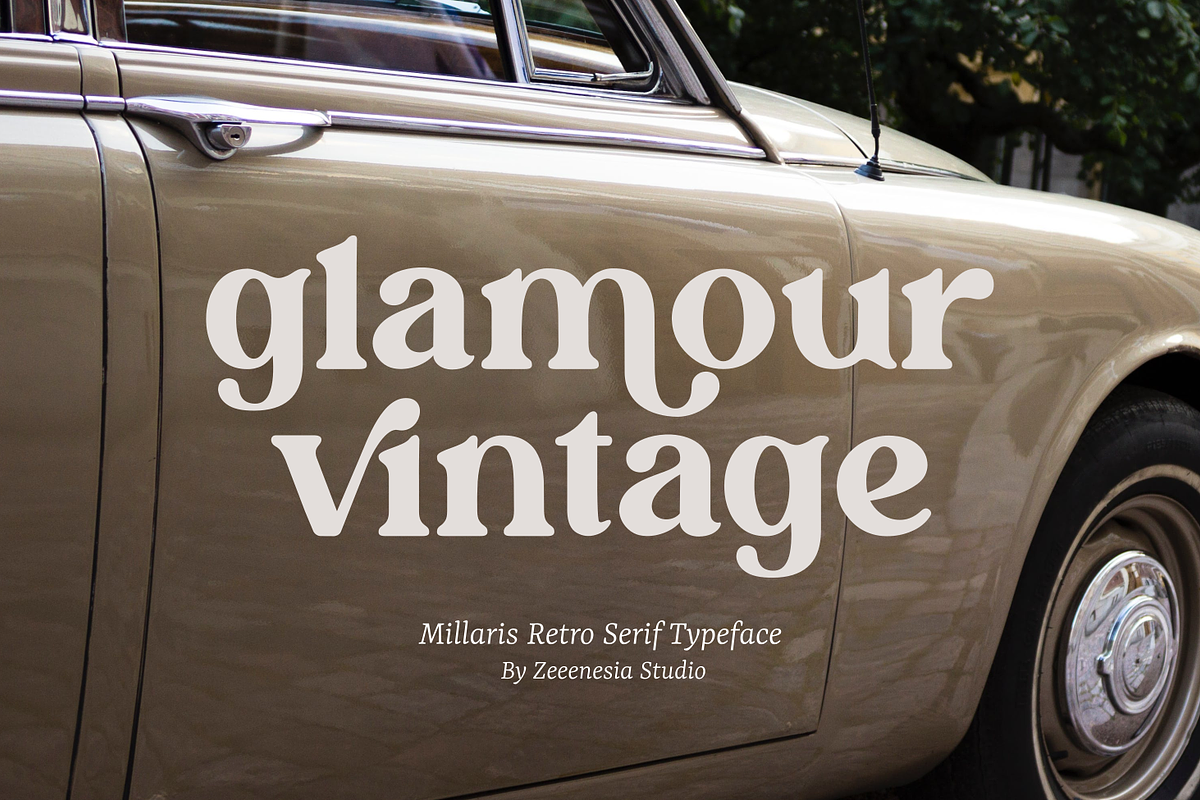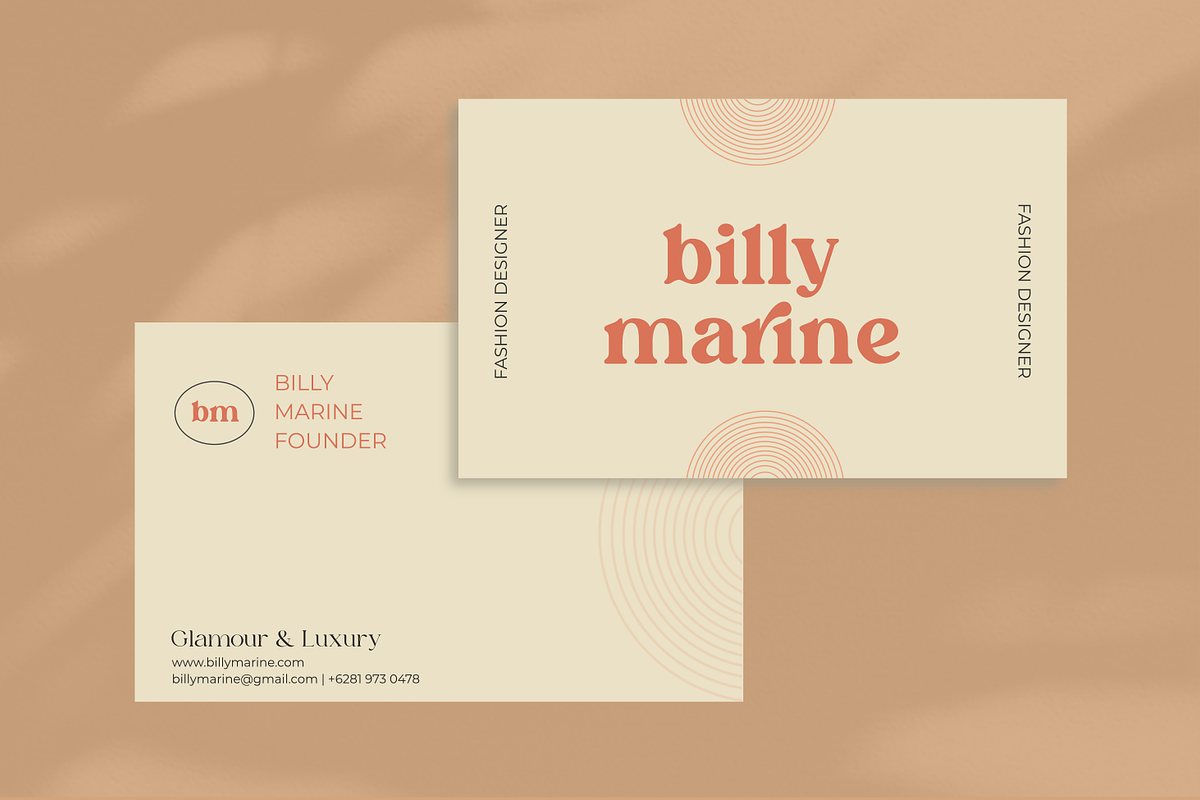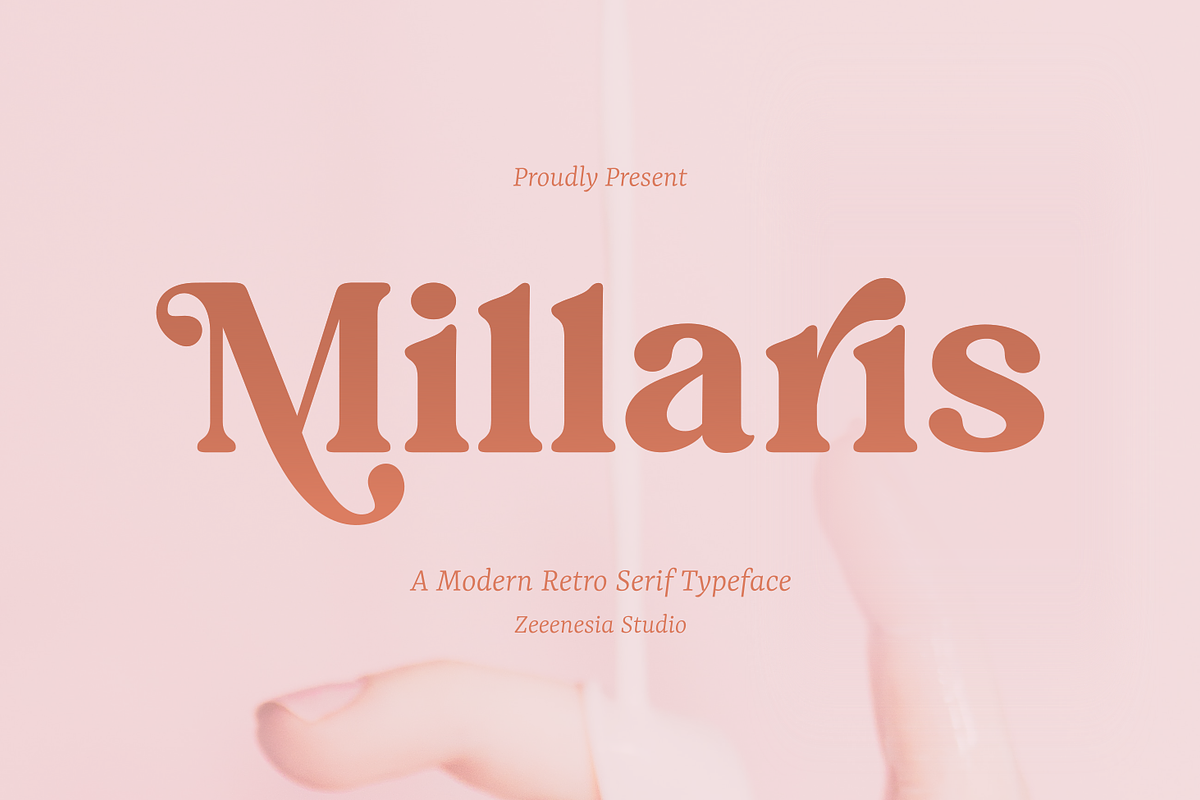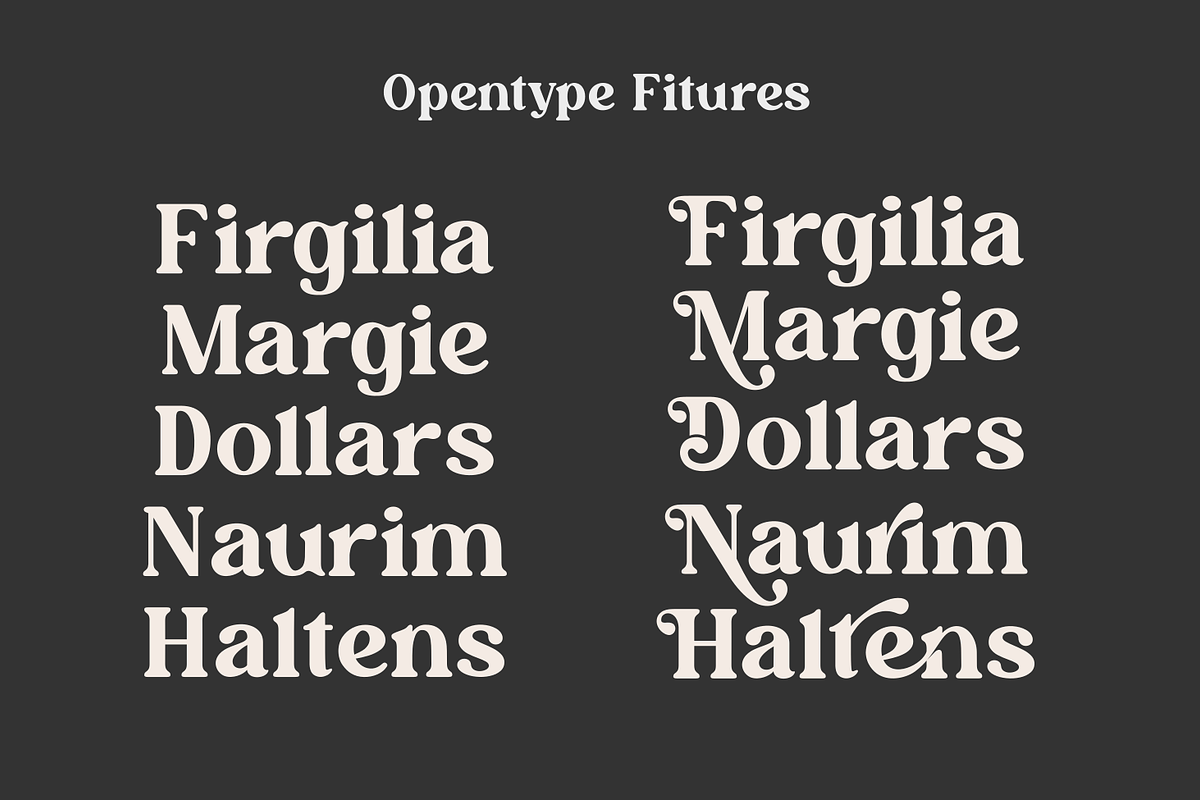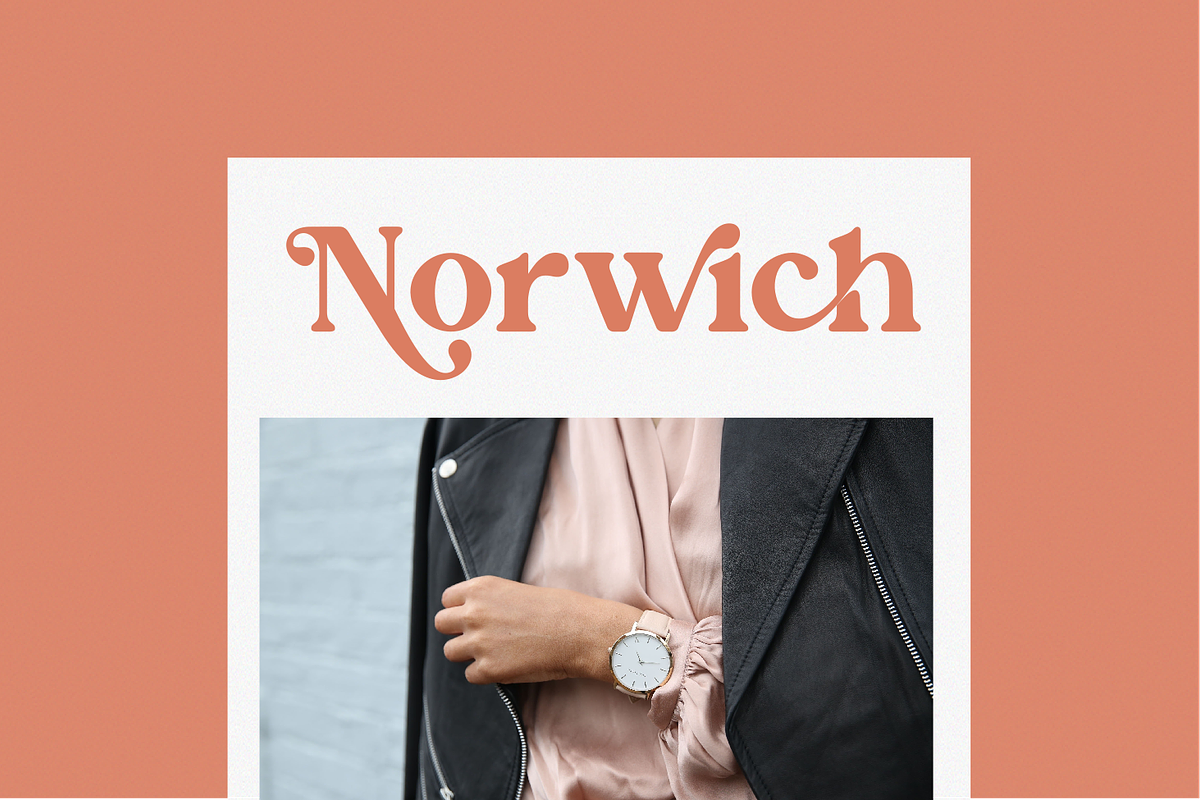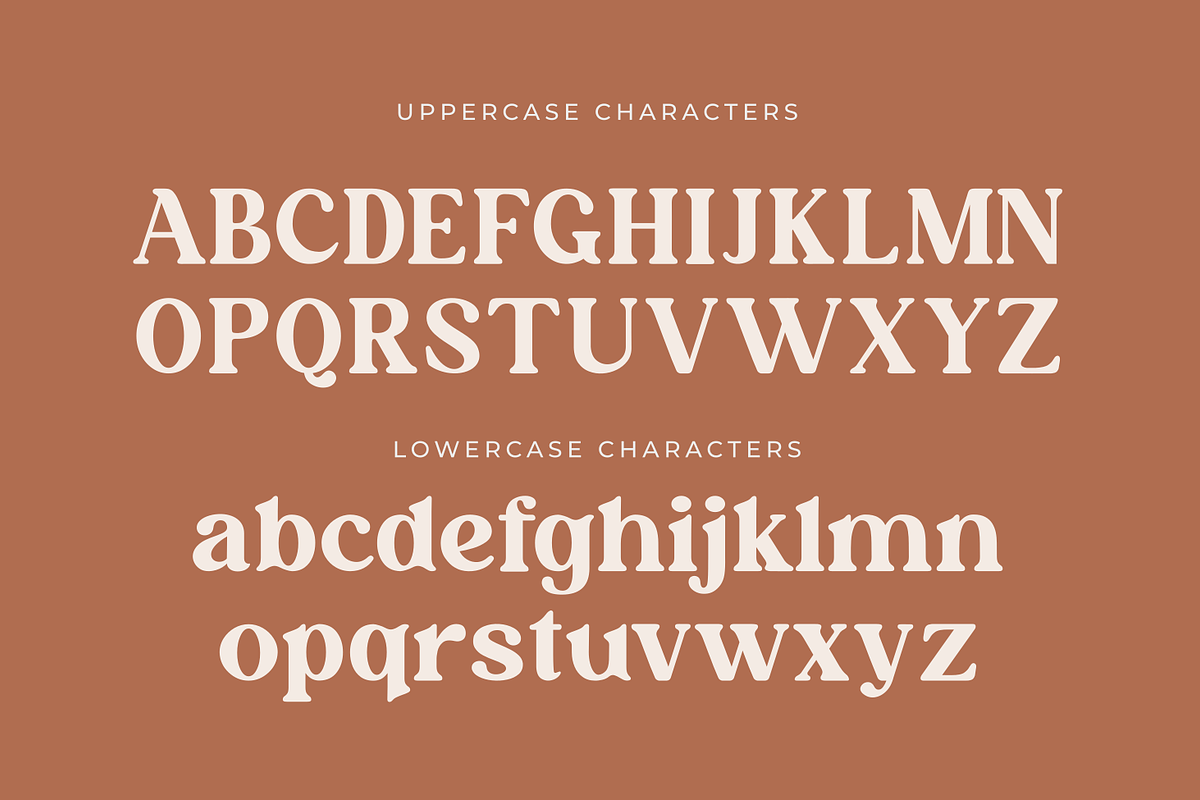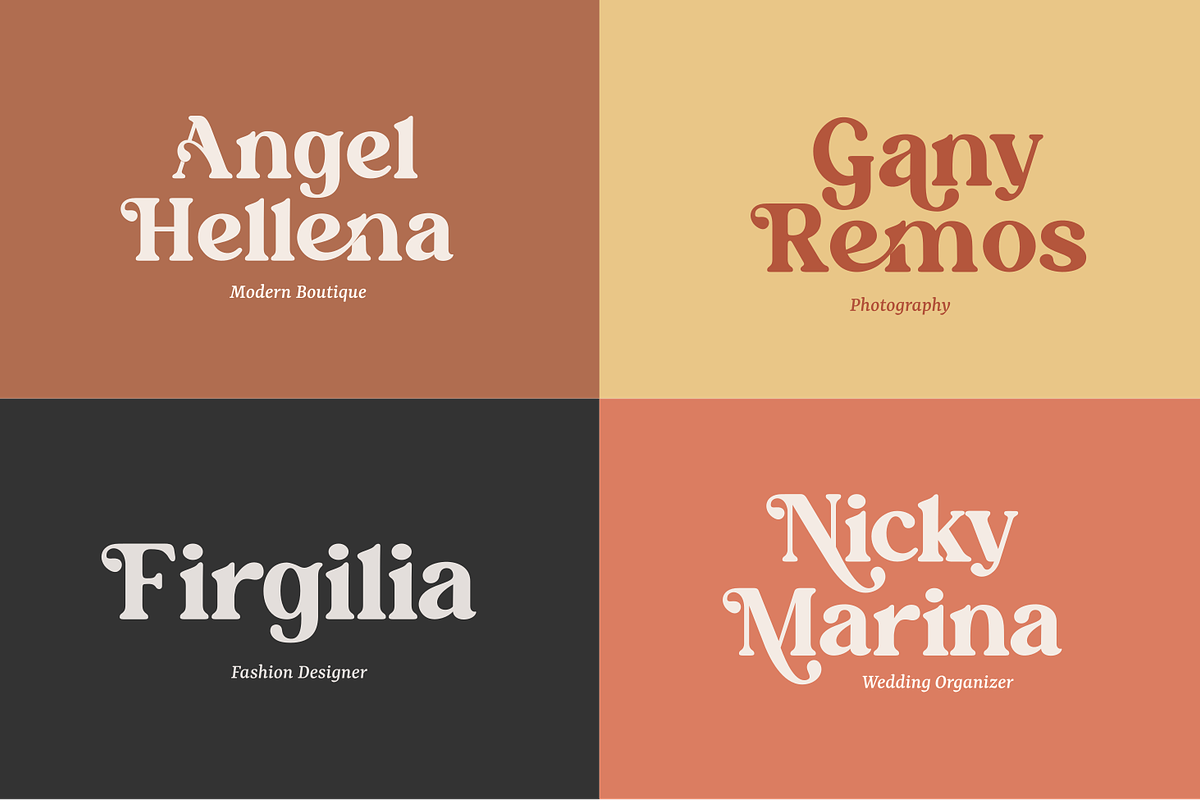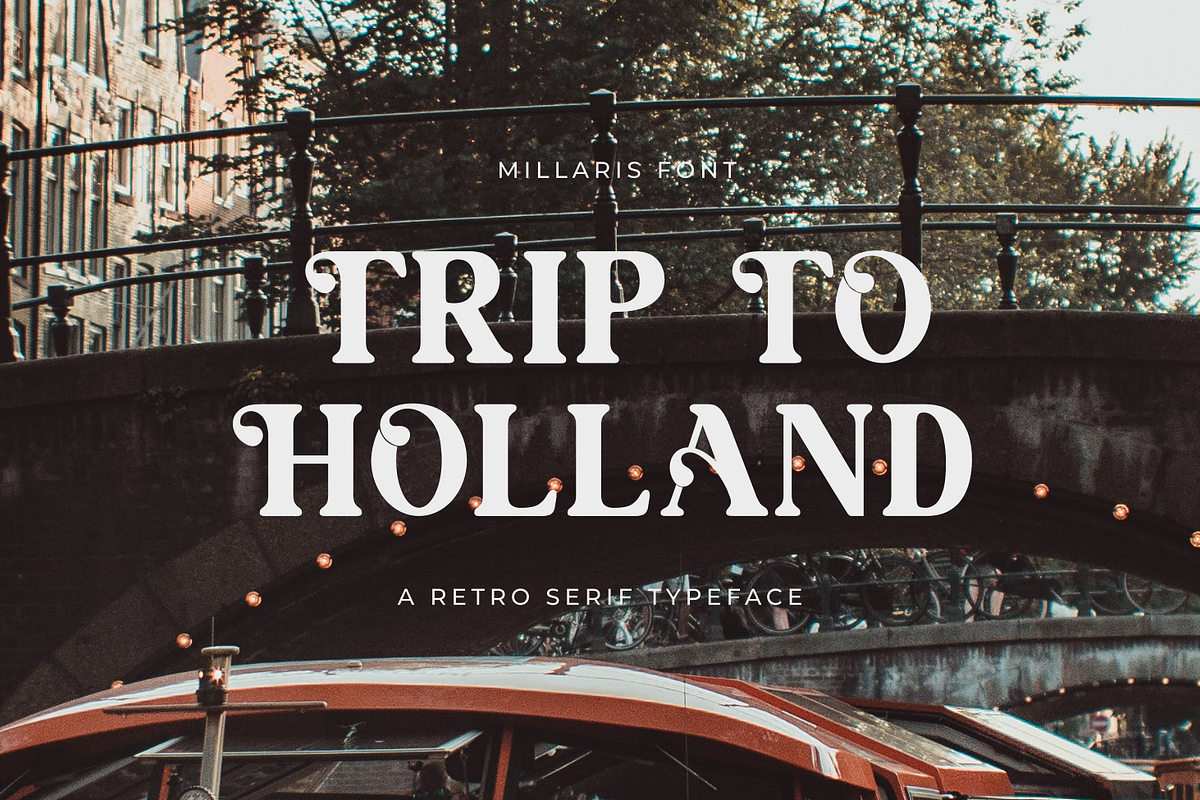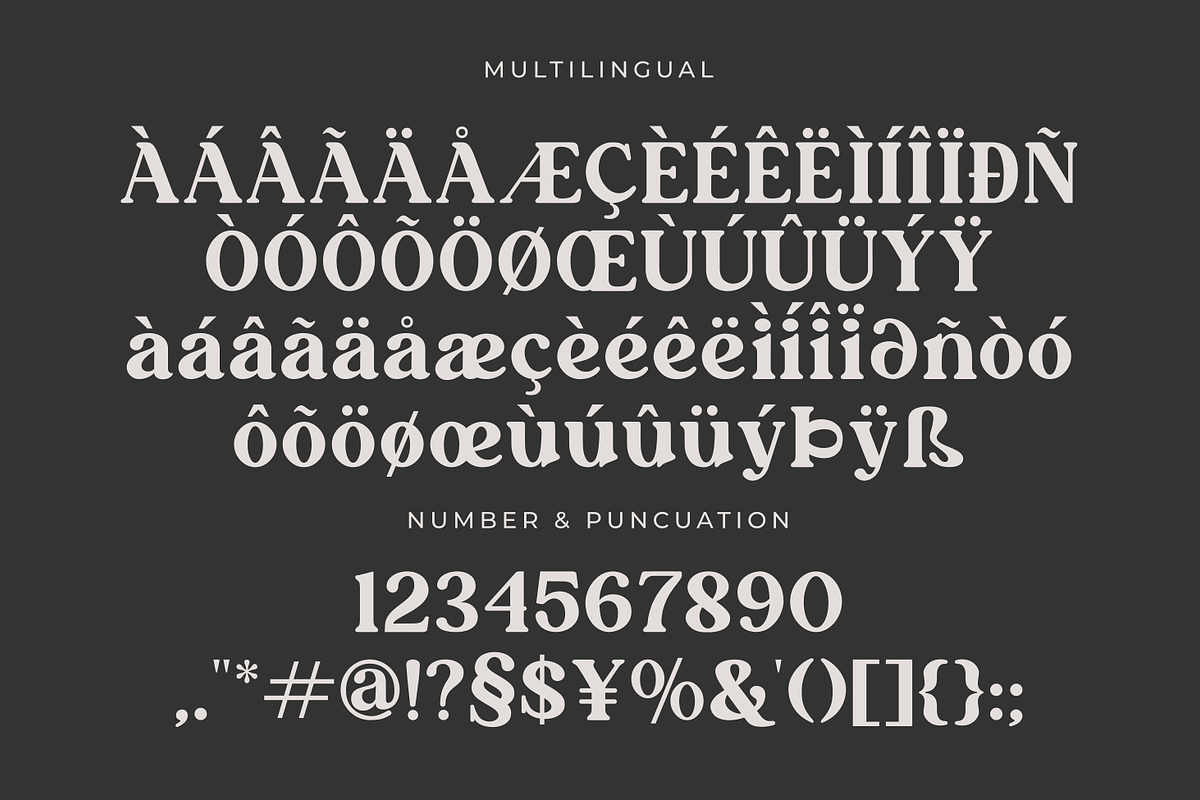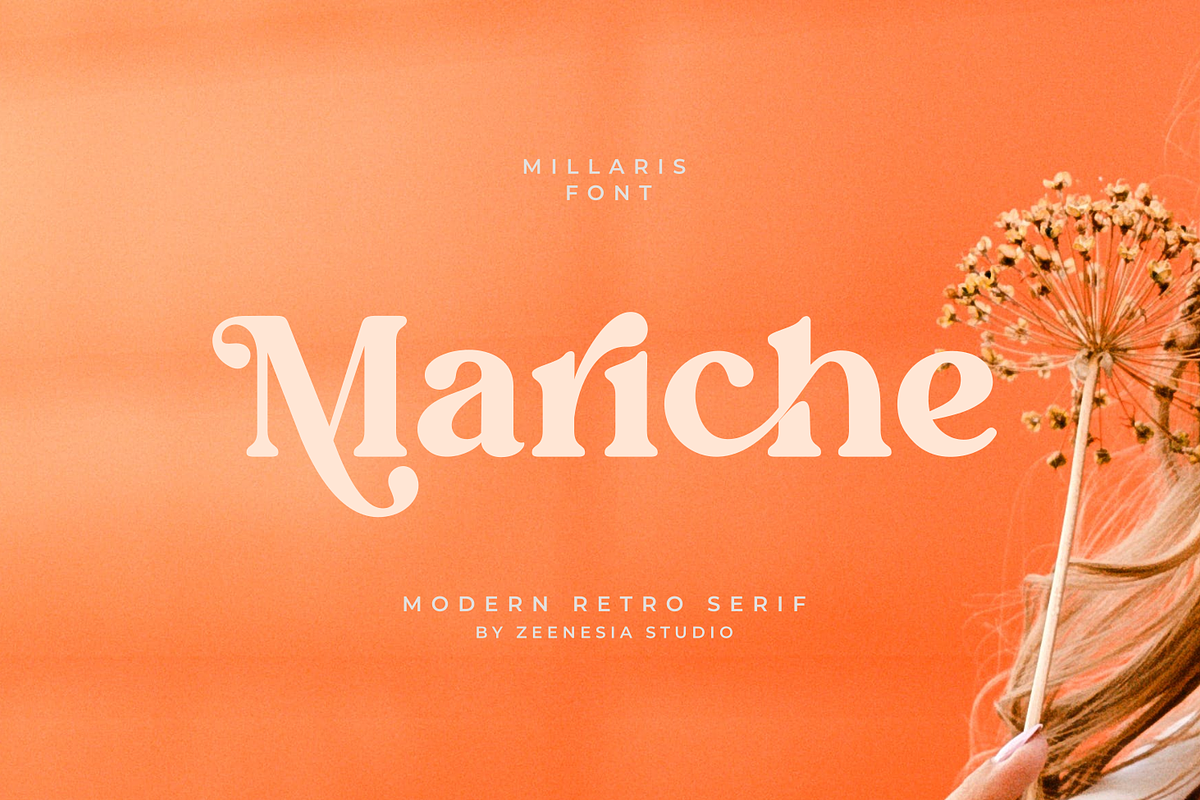
Millaris
Introducing Millaris is a modern and retro serif font. Millaris is very versatile font that works great in large. well-suited for advertising, branding, logotypes, packaging, titles, headlines and editorial design. I created more much alternates variant and much natural ligatures to make this font very classy and look so beauty. Bright Almond was built with open type features make your project will be perfect.